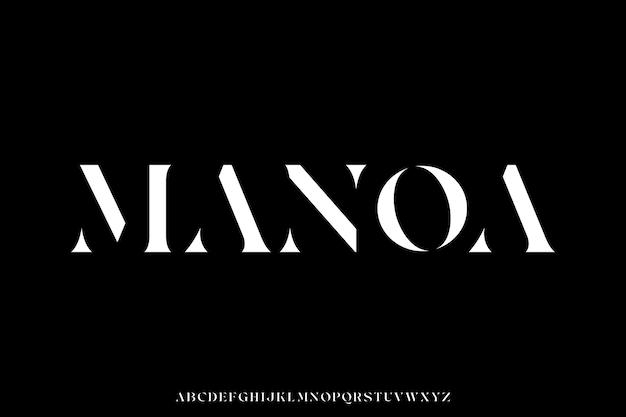
elegant abstract serif stencil type alphabet display font vector beautiful unique typography style
Elegant abstract serif stencil type alphabet display font vector beautiful unique typography style